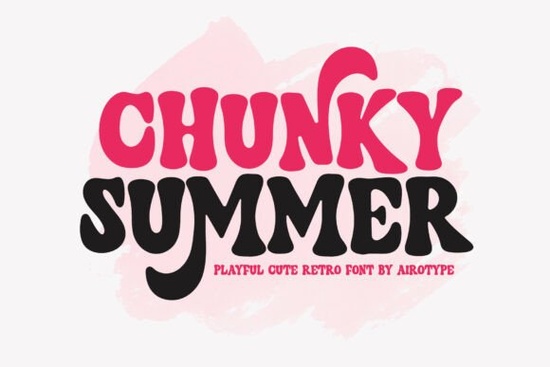
If you're looking for a typeface that feels like a sunny afternoon at a retro diner, Chunky Summer is worth a close look. This bouncy, playful font blends vintage charm with a lighthearted personality that works across a surprising range of projects. Whether you're designing birthday invitations, crafting stickers, or building out a print-on-demand shop, Chunky Summer Font brings that warm, happy energy without feeling overdone.
What Makes Chunky Summer Stand Out From Other Retro Fonts?
A lot of retro fonts lean heavy on nostalgia but end up feeling stiff or hard to read. Chunky Summer avoids that problem. The letters have a bouncy baseline and rounded, chunky shapes that keep things fun while staying legible at different sizes. It reads well on both screens and printed products, which matters if you're selling on platforms like Etsy or Redbubble.
The vintage-fancy style sits in a sweet spot it's playful enough for kids' designs but polished enough for branding work, party supplies, and seasonal campaigns. If you've used fonts like Sunny Gang Font before, you'll notice a similar upbeat vibe here, though Chunky Summer leans more into that rounded, chubby letterform style.
What Can You Actually Use This Font For?
This is the kind of typeface that earns its spot in your font library because you'll keep reaching for it. Here are some popular uses among designers and crafters:
- Back-to-school designs headers, labels, bulletin boards
- Kids' party invitations and birthday cards
- T-shirt designs for print-on-demand shops
- Sticker sheets and planner accessories
- Sublimation projects on mugs, tote bags, and pillows
- Social media graphics for summer sales or seasonal promos
- Scrapbooking and handmade card projects
It pairs nicely with clean sans-serifs for body text or with other display fonts that share a retro personality. For example, combining it with something like Pepper Pedro gives you a fun contrast between chunky and quirky styles.
How Does It Compare to Similar Display Fonts?
Chunky Summer holds its own in a crowded category of retro display fonts. If you're exploring options, here's how it stacks up against a few others worth considering:
- Raither Display Font has a bolder, more condensed feel that works great for headlines and posters
- Sunny Gang shares the playful energy but with a slightly more hand-drawn look
- Martin Font leans more structured and geometric, better for clean vintage branding
- Vintage Magazine a strong pick if you want that classic editorial retro style
Each of these fills a slightly different niche. Chunky Summer is the one you'd grab when you want something approachable, rounded, and unmistakably cheerful. Pair it with another option like Raither Display and you've got a solid retro toolkit without overlapping styles.
The character set usually covers uppercase, lowercase, numbers, punctuation, and multilingual support. For a display font like this, that's everything you'd need for most crafting and design work.
Is Chunky Summer Right for Your Next Project?
If your work involves kids' products, seasonal designs, or anything that benefits from a retro, happy aesthetic, this font is a smart addition. It's especially useful if you run a print-on-demand shop and need typefaces that look great on mockups and real products alike.